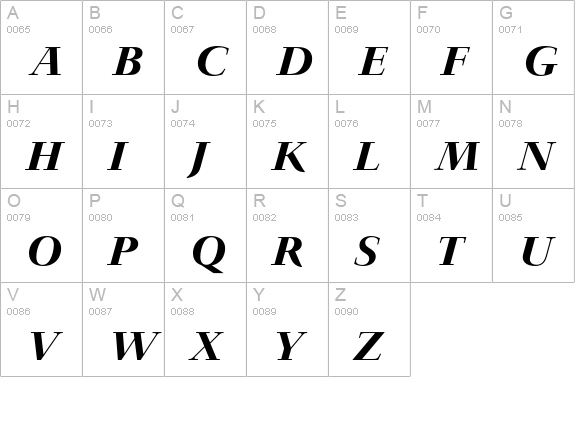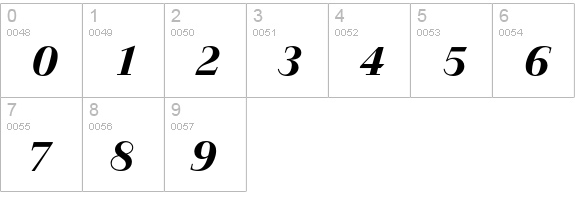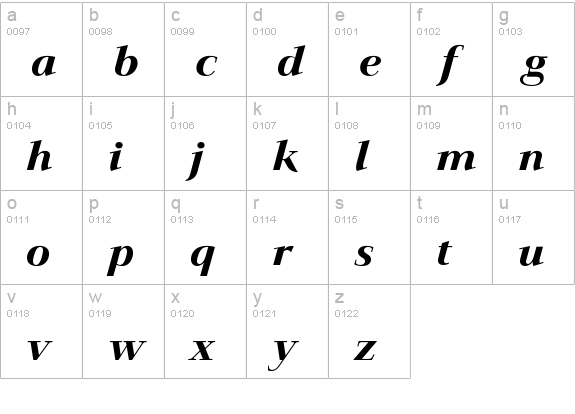
Jaeger-Antiqua Medium Italic Font Details
Jaeger-Antiqua Medium Italic is a balanced, medium-weight, italic variant in the Jaeger typeface family \xE2\x80\x94 well suited to sub-headlines, navigation, and balanced editorial work.
The Jaeger-Antiqua Medium Italic font is a stunning display of elegance and sophistication. With its gracefully slanted letterforms and delicate strokes, this font exudes a sense of refined beauty. Designed with meticulous attention to detail, the Jaeger-Antiqua Medium Italic font offers a perfect balance between tradition and modernity. Its timeless appeal makes it suitable for a wide range of design projects, from invitations and advertisements to logos and branding. This font's versatility is further enhanced by its medium weight, allowing it to effortlessly capture attention without overwhelming the viewer. The italicized style adds a touch of dynamic flair, making it an ideal choice for conveying a sense of movement and excitement. But what truly sets the Jaeger-Antiqua Medium Italic font apart is the fact that it is freely available to download at FontsMarket.com. This means that designers, creatives, and enthusiasts alike can access this exquisite typeface without any cost. So whether you're a professional designer looking to add a touch of sophistication to your work or a hobbyist seeking a font that perfectly complements your personal projects, the Jaeger-Antiqua Medium Italic font is the ideal choice. Its combination of elegance, versatility, and the added bonus of being free to download makes it a true gem in the world of typography.